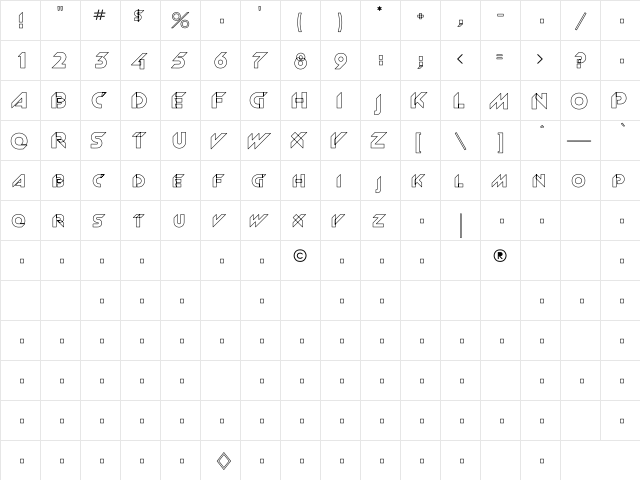
Rsnewgrrtt Hollow Regular
Design Context for Rsnewgrrtt Hollow Typeface
Rsnewgrrtt Hollow is a composed and adaptable typeface that performs quietly and consistently across a wide range of design contexts.